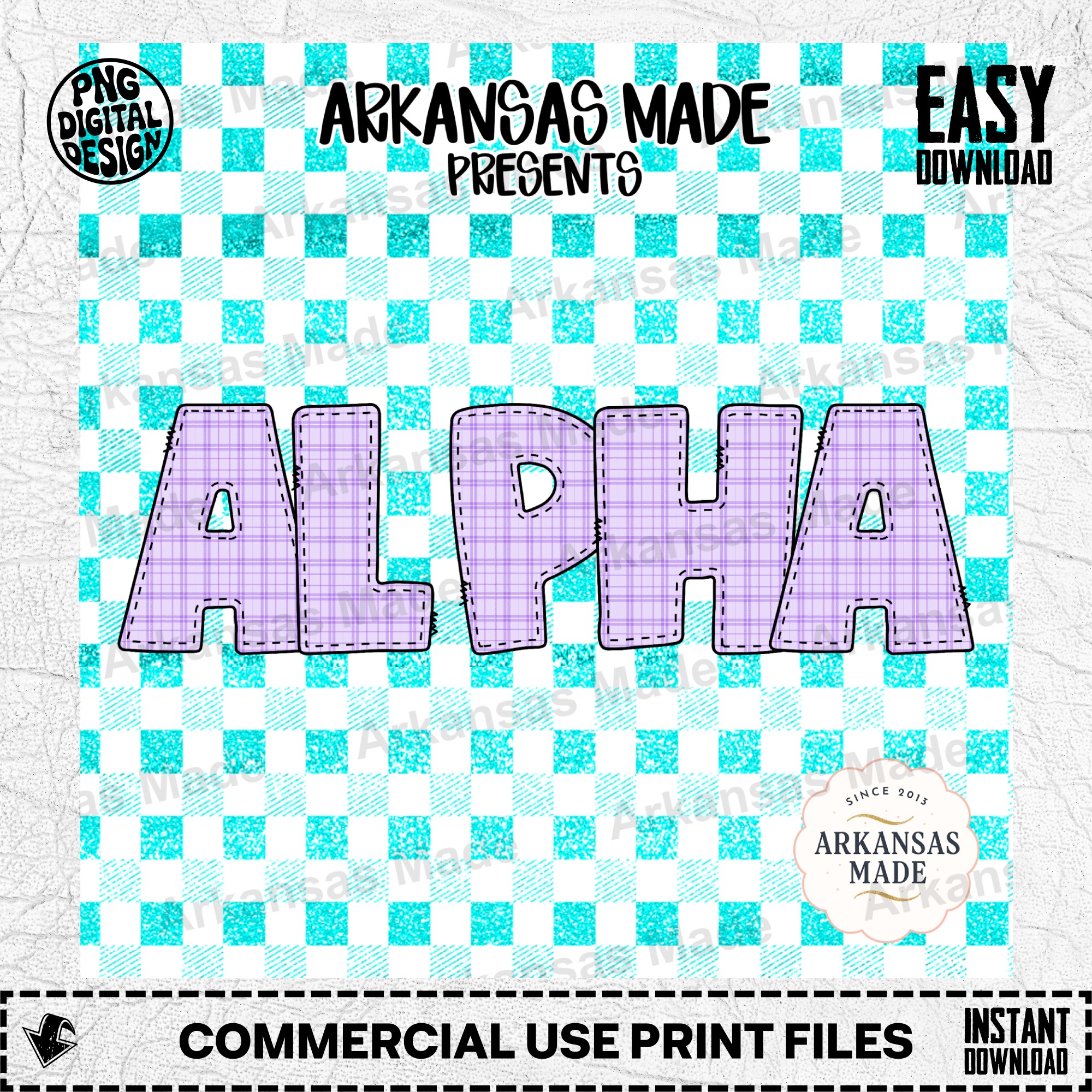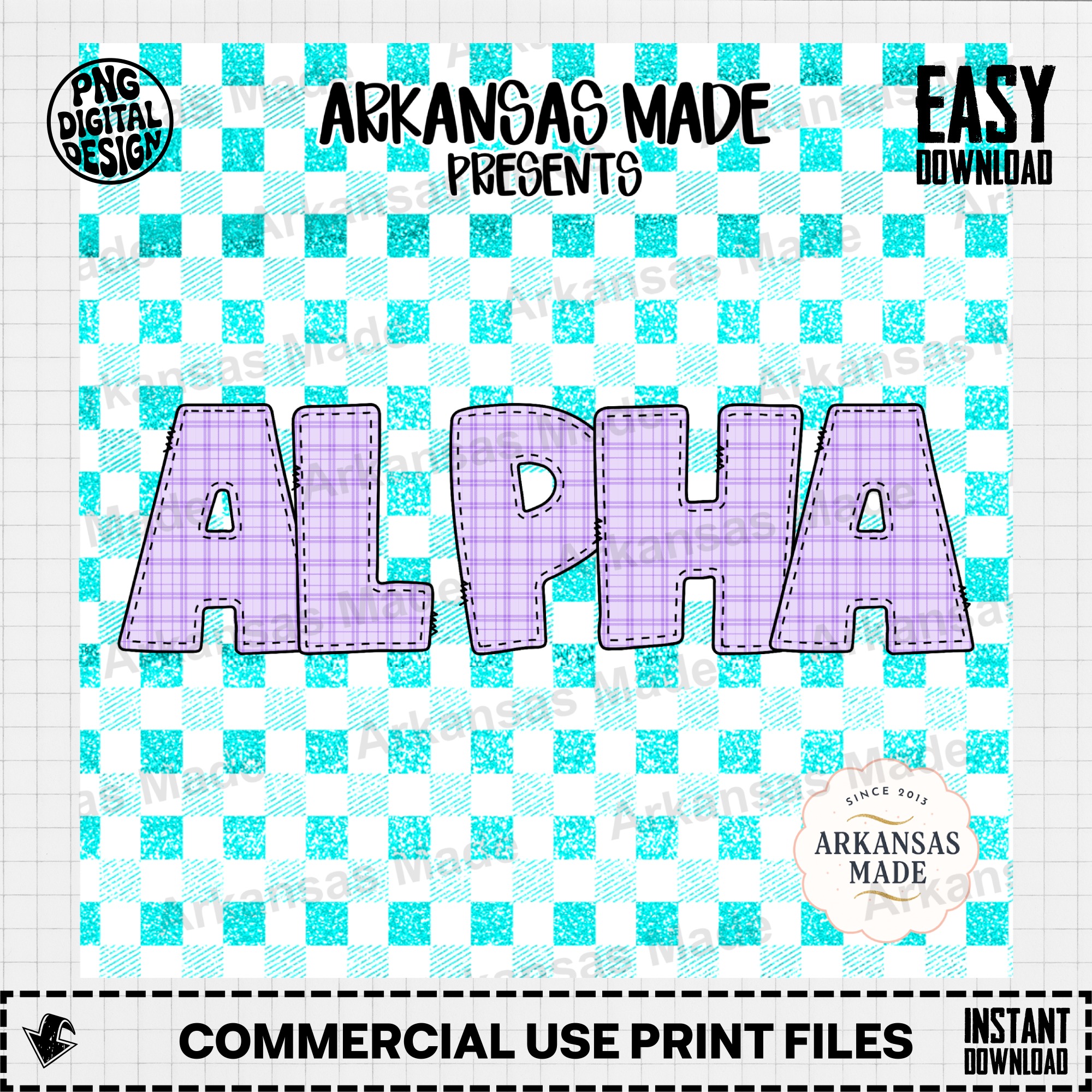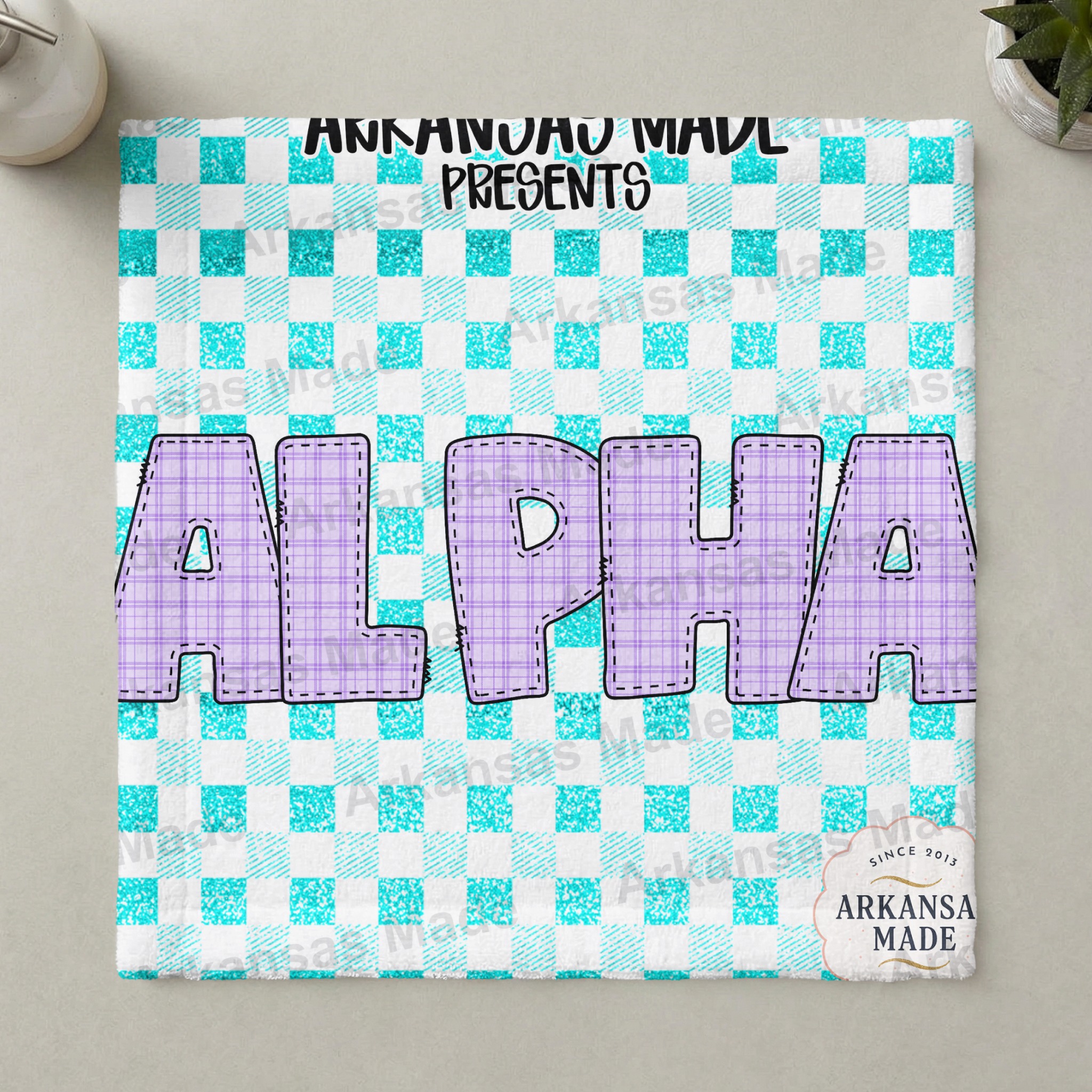
Unlock creative projects with our Digital Alpha Set PNG, featuring vibrant purple plaid and faux turquoise glitter gingham letters. Instant download for crafters! This charming stitched alphabet pack offers a preppy, crafty aesthetic perfect for sorority events, personalized gifts, or school projects. Ideal for DIY enthusiasts, scrapbookers, and graphic designers seeking a unique, playful font. Add a touch of Southern charm and sparkle to your designs, perfect for custom shirts, digital art, or party decorations.